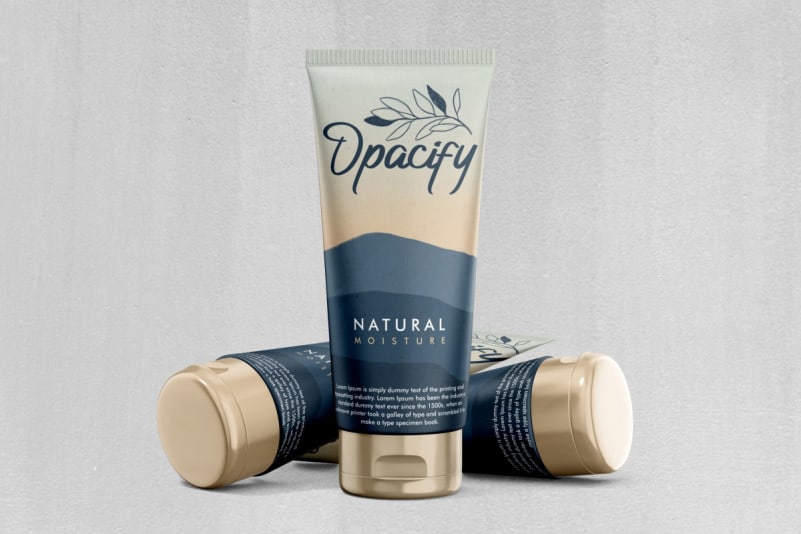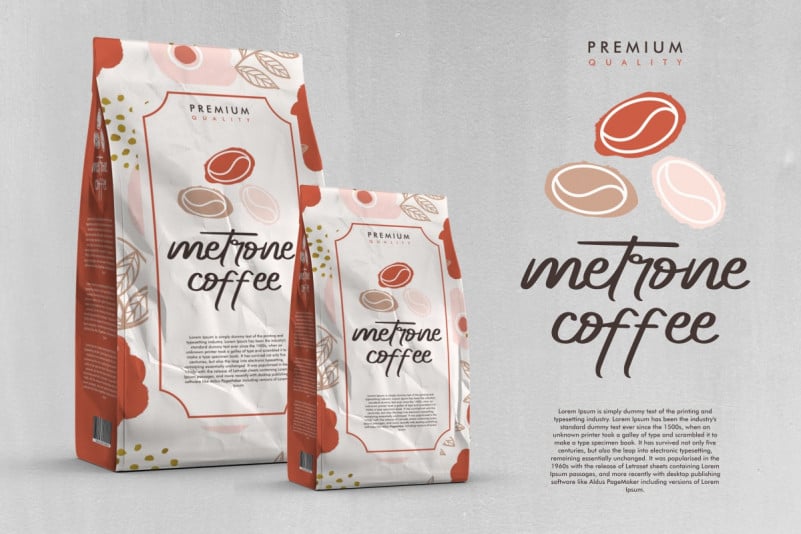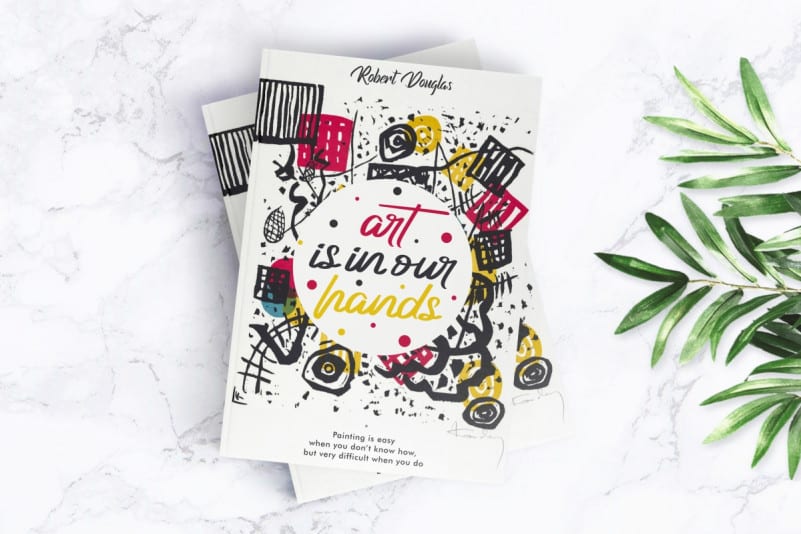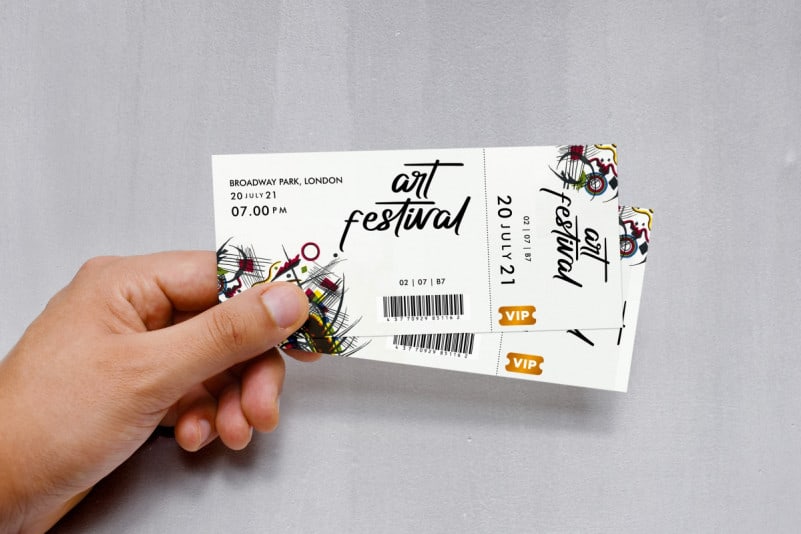
Geistown Script Font is a fun, comic and casual Handwriting font. Inspired from popular food brandings, the font will be awesome for brands, packaging, invitation, games. etc